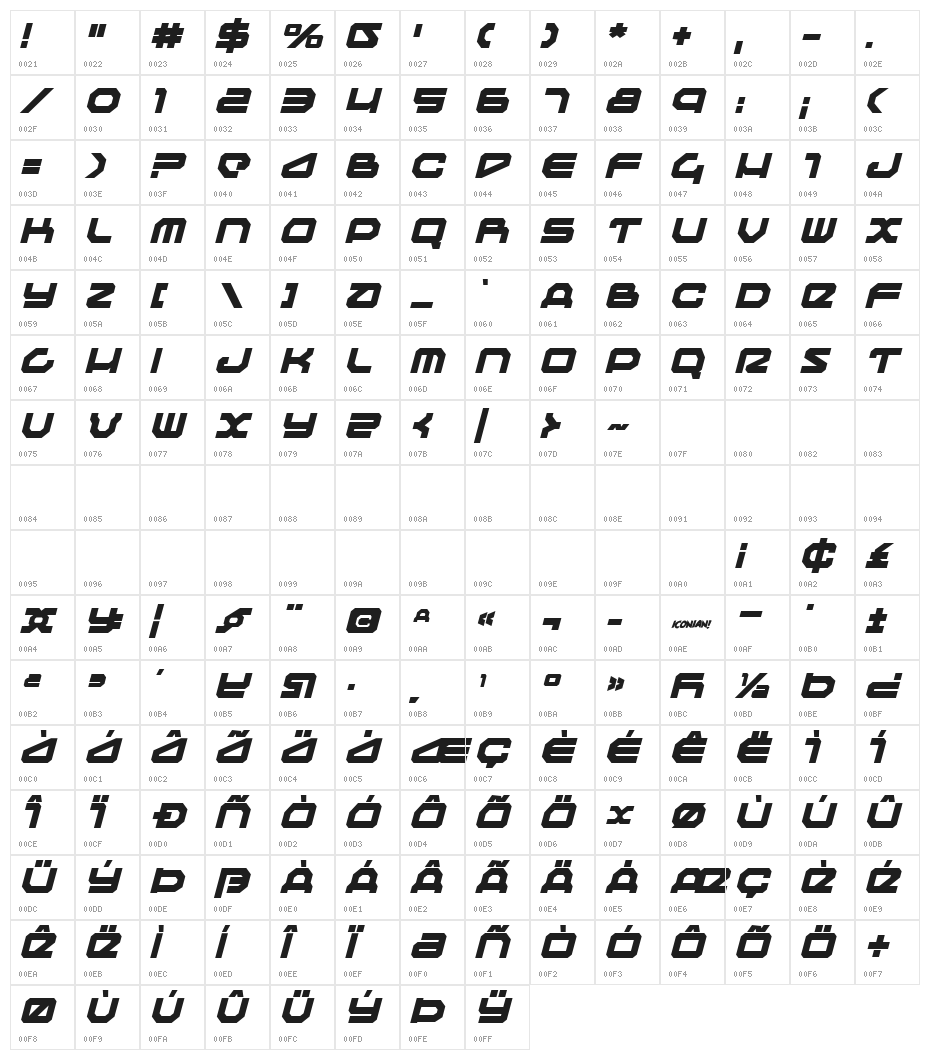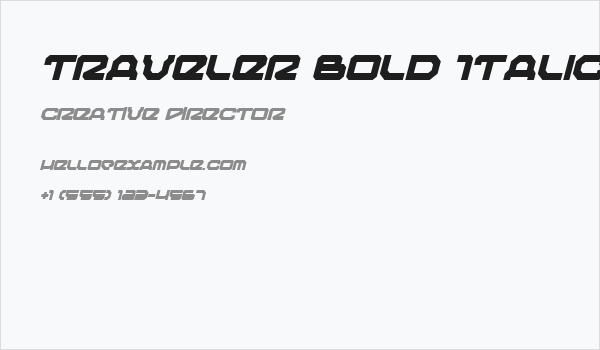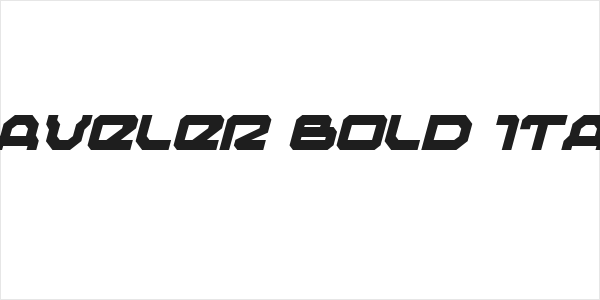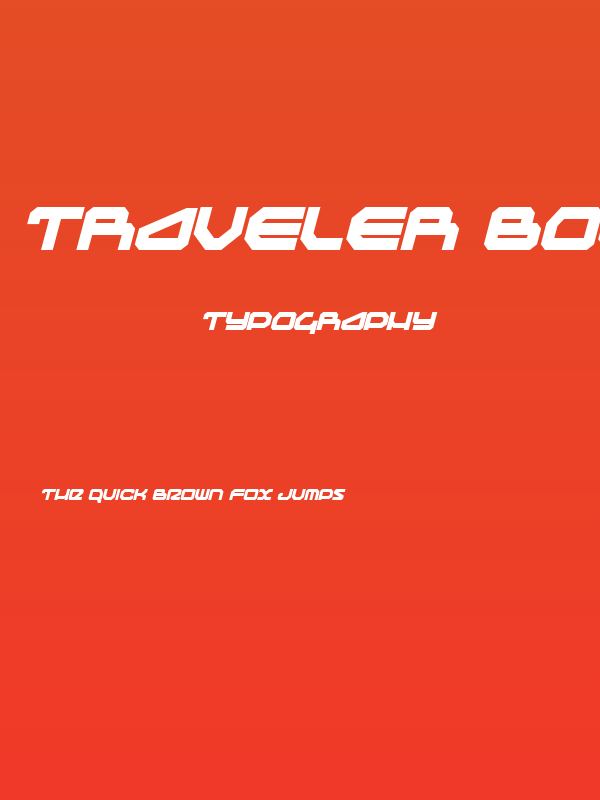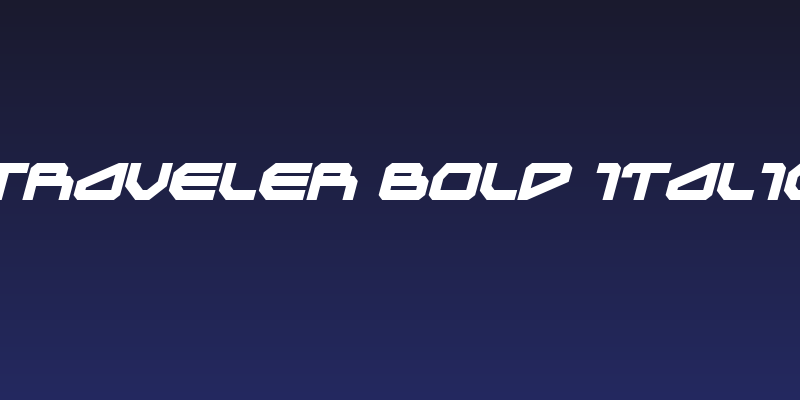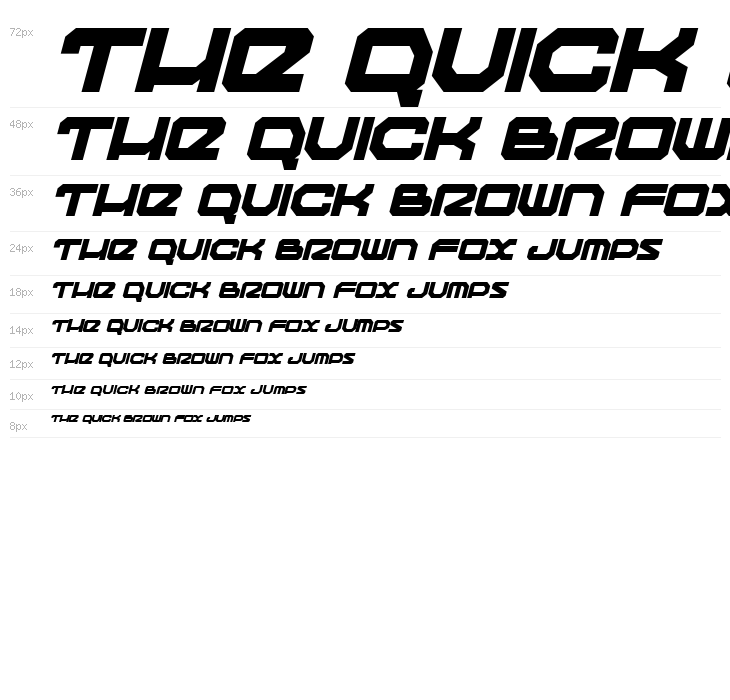
Traveler Bold Italic Font
Traveler Bold Italic Description
This font features a bold and italicized style with a futuristic and angular design. The characters are sharply cut with a geometric influence, giving them a dynamic and modern appearance. The uppercase and lowercase letters maintain a consistent slant, enhancing the italic effect. The numbers and special characters follow the same stylistic cues, ensuring uniformity across all glyphs. The font's bold weight and italic slant make it stand out, suitable for attention-grabbing headlines or titles. Its unique style is reminiscent of sci-fi themes, making it ideal for projects that require a modern and edgy look.
| Proposed Projects | Ideal for sci-fi themed projects, technology branding, video game titles, and futuristic posters. |